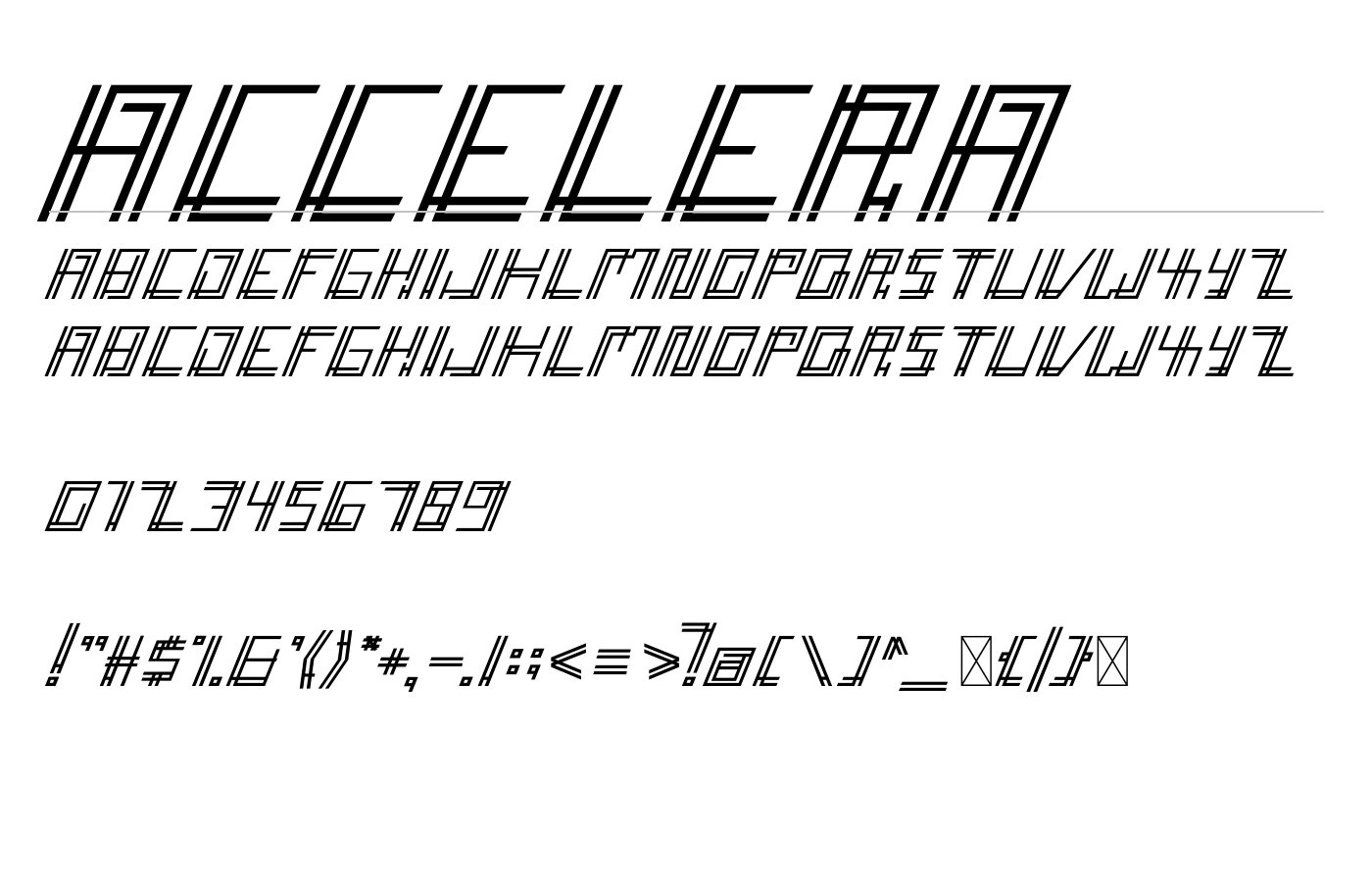
Accelera is a sleek, futuristic sans serif font with a condensed, slanted design that gives a strong sense of speed and motion. Its geometric, narrow letterforms and sharp angles create a modern and tech-savvy feel, making it ideal for dynamic branding, sports-related projects, or high-energy headlines. This font works best in eye-catching display uses where a cutting-edge, fast-paced vibe is desired.
Accelera Font
About Accelera Font